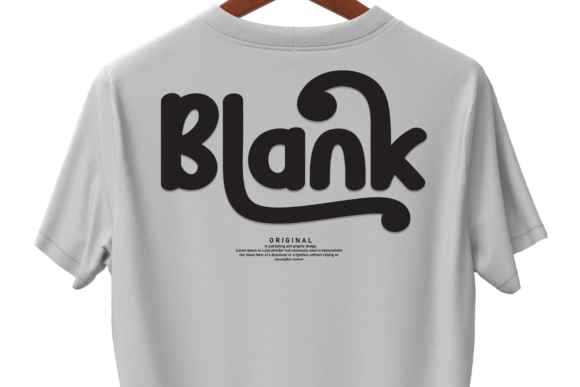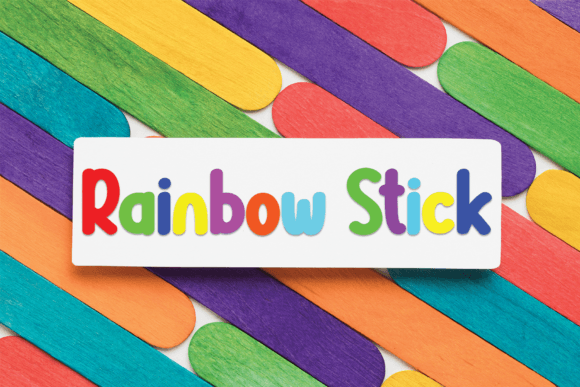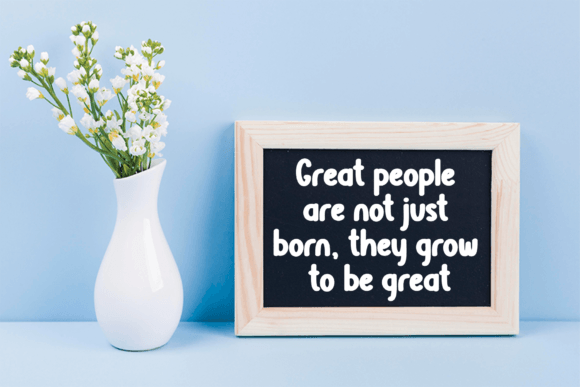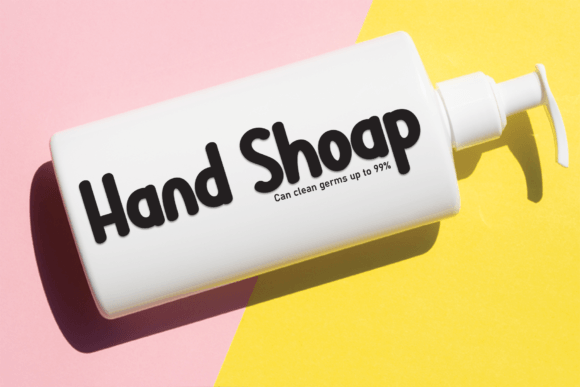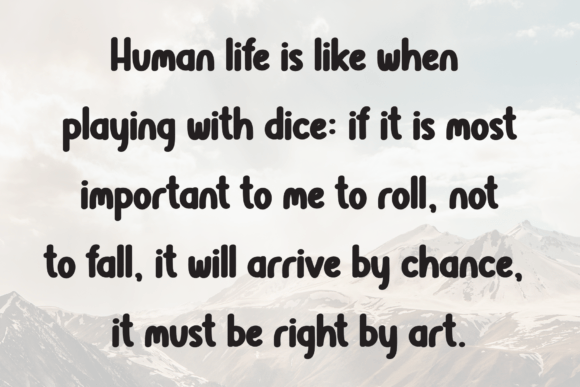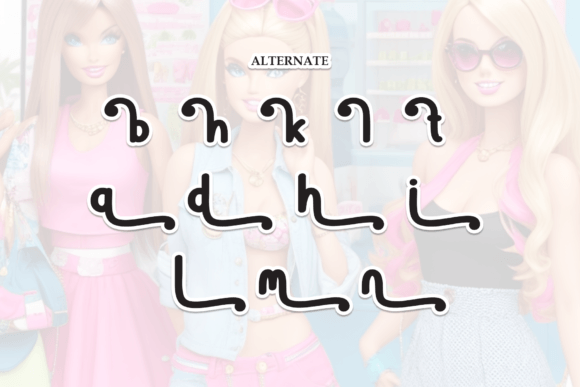
Discover the Sweetness: Best Barbie Font for Your Creative Projects
Are you a designer, crafter, or DIY enthusiast looking for a font that adds a touch of sweetness and friendliness to your projects? Look no further than the Best Barbie font! This beautiful, handwritten display font is perfect for creating wedding invitations, greeting cards, and other designs that require a fun and playful twist.
What Makes Best Barbie Font So Special?
Best Barbie is a sweet and friendly handwritten display font that is sure to capture the hearts of anyone who lays eyes on it. Its cute and fun design makes it an ideal choice for a wide range of creative projects, from wedding invitations and cards to posters, flyers, and more.
One of the standout features of the Best Barbie font is its unique, hand-crafted look. Each letter is carefully designed to give the font a personal and intimate feel, making it perfect for projects that require a touch of warmth and personality.
Wedding invitations and cards are a great way to showcase the Best Barbie font. Its elegant yet playful design makes it perfect for couples who want to add a touch of whimsy to their special day. Whether you’re designing a formal wedding invitation or a casual save-the-date card, the Best Barbie font is sure to impress.
Here are just a few ways you can use the Best Barbie font for wedding invitations and cards:
• Create a custom wedding invitation that sets the tone for your special day
• Design a beautiful thank-you card to send to guests and loved ones
• Make a stunning wedding program that showcases your personal style
Ideal for Crafters and DIY Enthusiasts
The Best Barbie font is not just limited to professional designers. Crafters and DIY enthusiasts can also use this beautiful font to add a touch of personality to their projects.
Here are just a few ideas for crafters and DIY enthusiasts:
• Create custom party decorations, such as banners and garlands
• Make personalized gifts, such as mugs, t-shirts, and tote bags
• Design beautiful journal pages and scrapbook layouts
Key Features of the Best Barbie Font
Here are some of the key features that make the Best Barbie font so special:
• Handwritten display font with a unique, hand-crafted look
• Cute and fun design perfect for adding a touch of whimsy to your projects
• Ideal for wedding invitations, cards, and other designs that require a personal touch
Tips for Using the Best Barbie Font
Here are a few tips for getting the most out of the Best Barbie font:
• Use it sparingly: While the Best Barbie font is beautiful, it can be overwhelming if used too much. Use it sparingly to add a touch of personality to your projects.
• Pair it with other fonts: The Best Barbie font pairs well with other fonts, such as serif and sans-serif fonts. Experiment with different combinations to find the perfect look for your project.
• Experiment with colors: The Best Barbie font looks great in a variety of colors. Experiment with different colors to find the perfect shade for your project.
The Best Barbie font is a beautiful, handwritten display font that is perfect for adding a touch of sweetness and friendliness to your creative projects. Its unique, hand-crafted look makes it ideal for wedding invitations, cards, and other designs that require a personal touch.